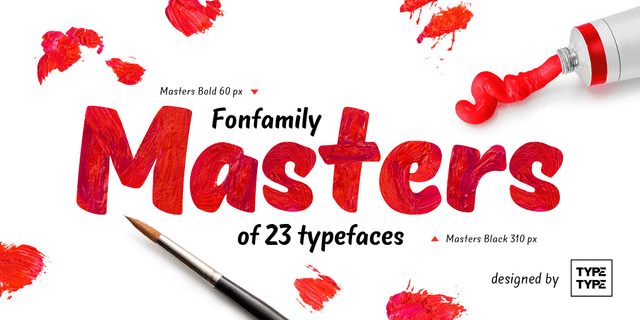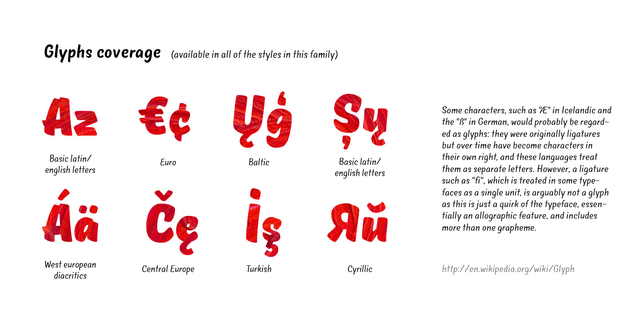
TT Masters (23 fonts)
About TT MastersMasters is a very emotional font family. These fonts will add to your design sincerity and feeling. We did 4 different styles: Masters, Masters Birds, Masters Rough and Masters Condensed. Also we added in each style classic font family formula: Thin, Light, Regular, Bold and Black. The typeface was designed by Ivan Gladkikh in TypeType studio in 2015.
Features of font family TT MastersThe hit of the decade:
Associations for font family TT MastersTypeface personality and character:
alive, dynamic, fresh, cold, thin, easy, clean, spring, weightless, transparent, wire, orderly, simple, friendly, confidence, benevolent, affable, kind, man-made, natural, organic, Soft, handicraft, healthy, positive, clear, available, craft brewed, Artisanal, vegetable, delicious, cartoonish, glad, honest, smooth, juicy, festive, home, happy, cute, nice, funny, cool, playful, dashing, green, manual, heavy, fat, close-fitting, strong, notable, splashy, children, black, daring, bright, active, freewheeling, slim, practical, economical, home-made, eco-friendly, farmer, avian, witty, provocative, mischievous, agile, original, naive, summer, autumn, forest, slovenly, restless, vernacular, thorny, sharp, rude, ragged, domestic, Vintage, hardworking, warm, lamp, good quality, loud